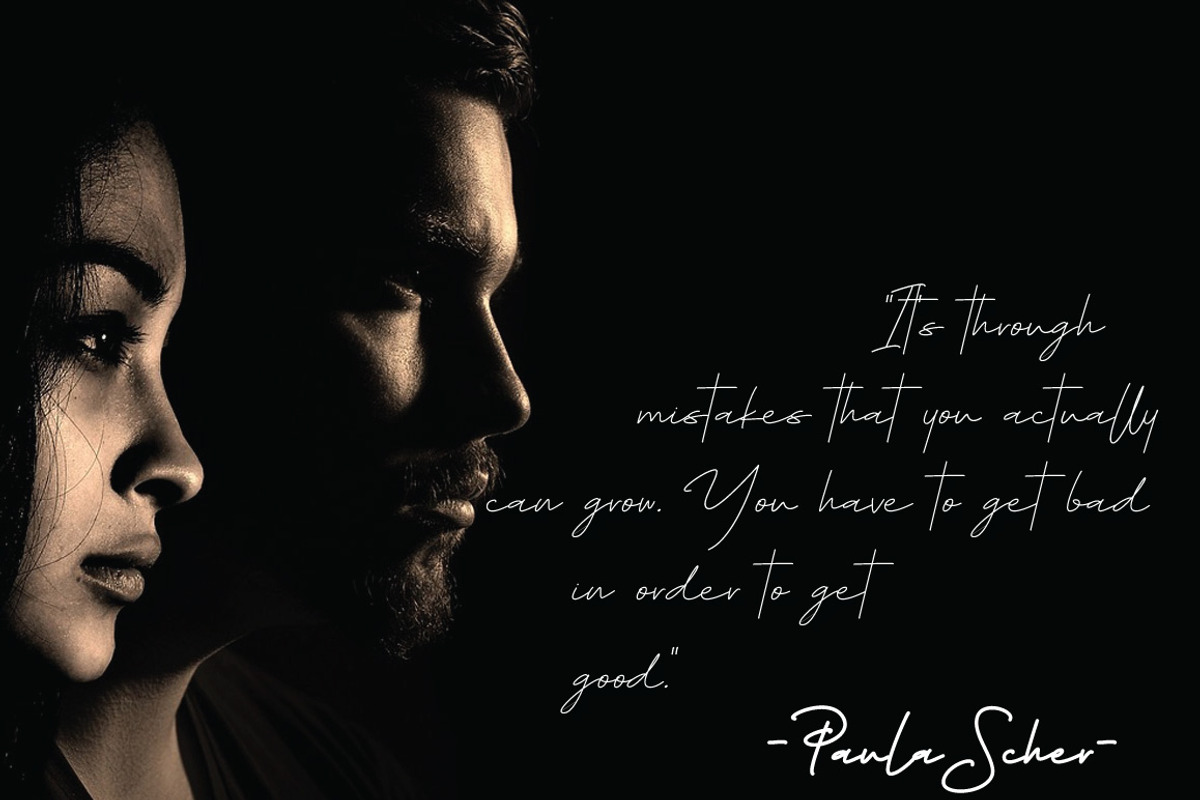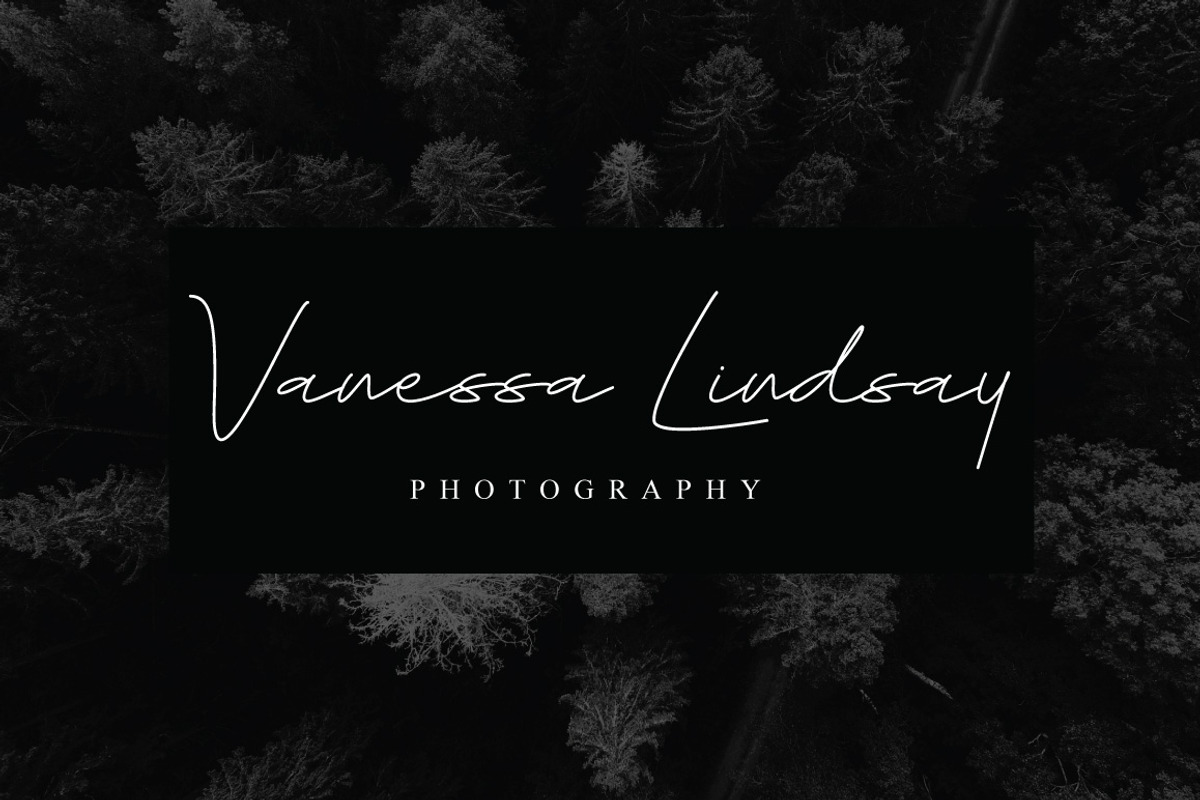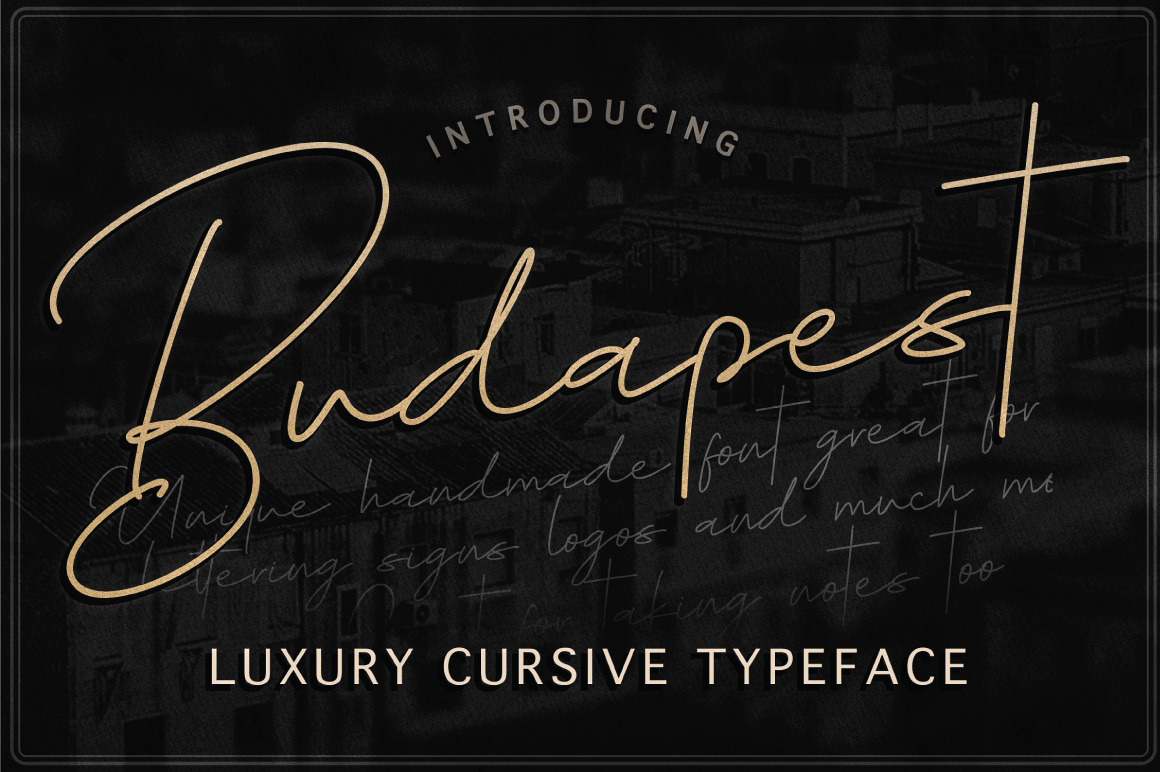
Budapest Script Font ( 6 Fonts )
INTRODUCING
BUDAPEST SCRIPT FONT!
Comes in 3 styles REGULAR, LIGHT AND BOLD
'Budapest' is a handwritten signature script with a natural & stylish flow. This collection of scripts is perfect for personal branding.
These typefaces work well for many different aesthetics. They work well with something like cosmetic, liquor labels, signage, & any type of signature-styled logo.
Multilingual Support is included for the following languages: Cornish, Danish, English, Estonian, Faroese, Filipino, Finnish, French, Friulian, Galician, German (Switzerland), Gusii, Icelandic, Indonesian, Irish, Italian, Kabuverdianu, Kalenjin, Kinyarwanda, Luo, Luxembourgish,Norwegian Bokmål, Norwegian Nynorsk, Portuguese, Romansh, Scottish Gaelic, Spanish, Swedish, Swiss German.